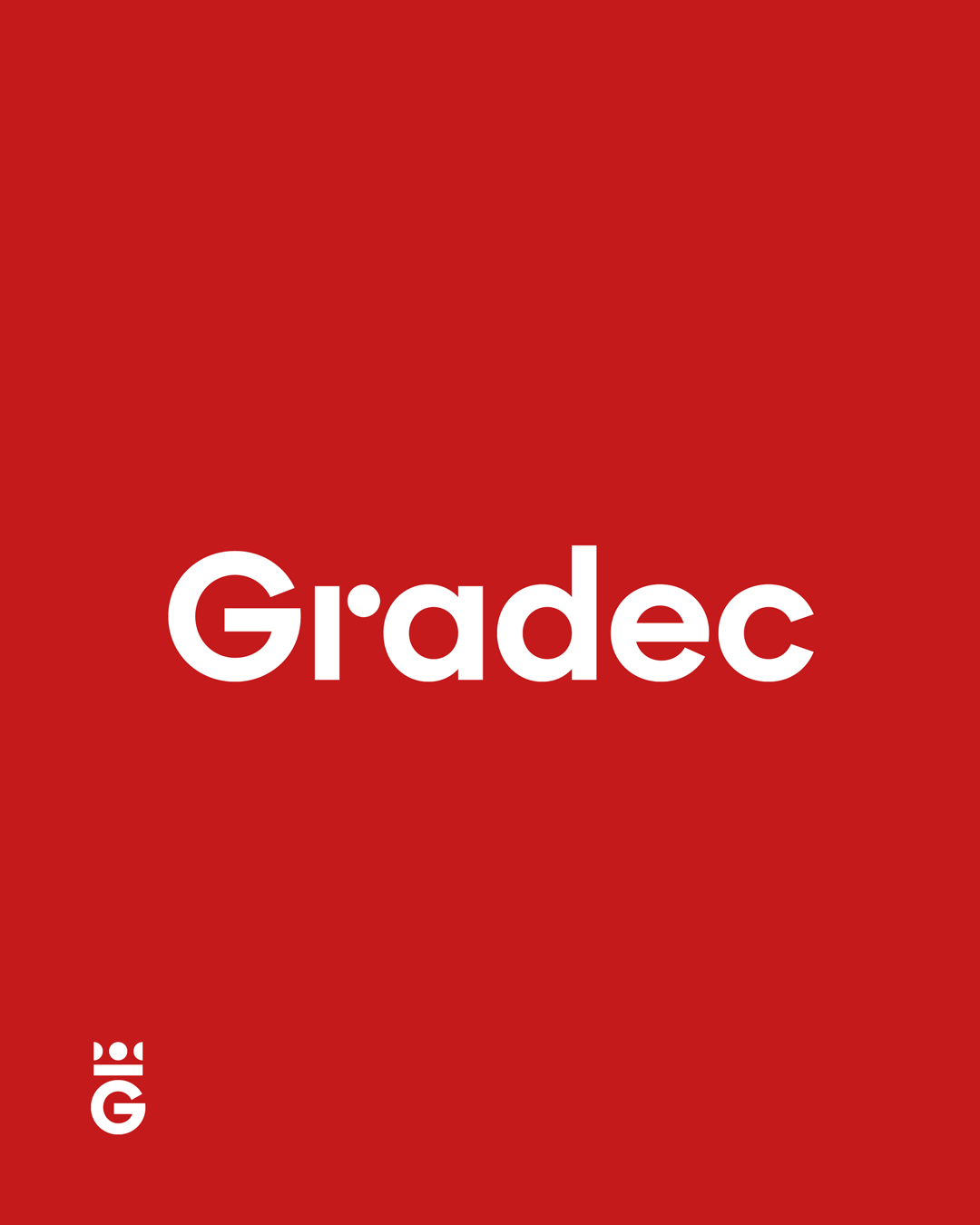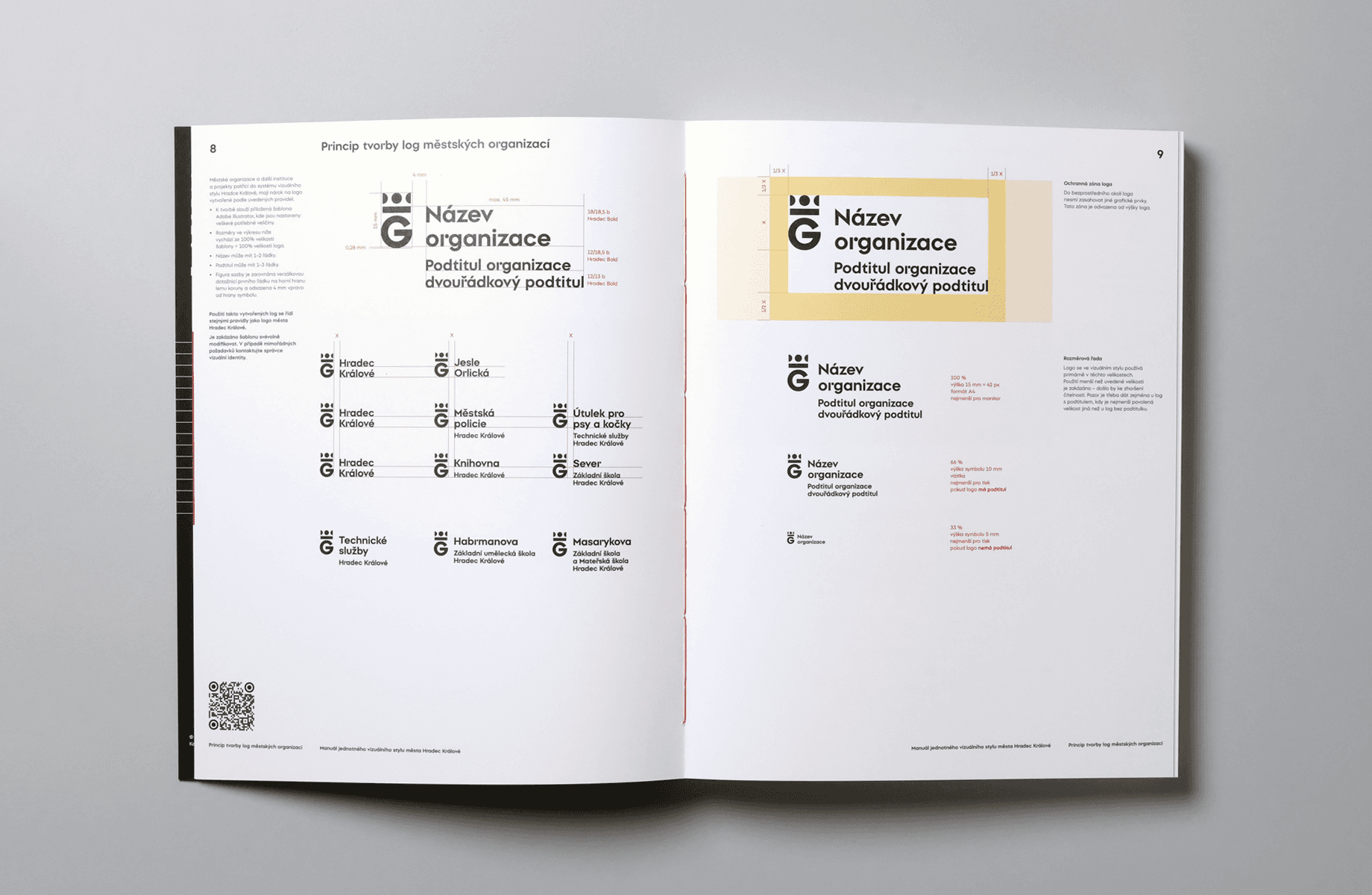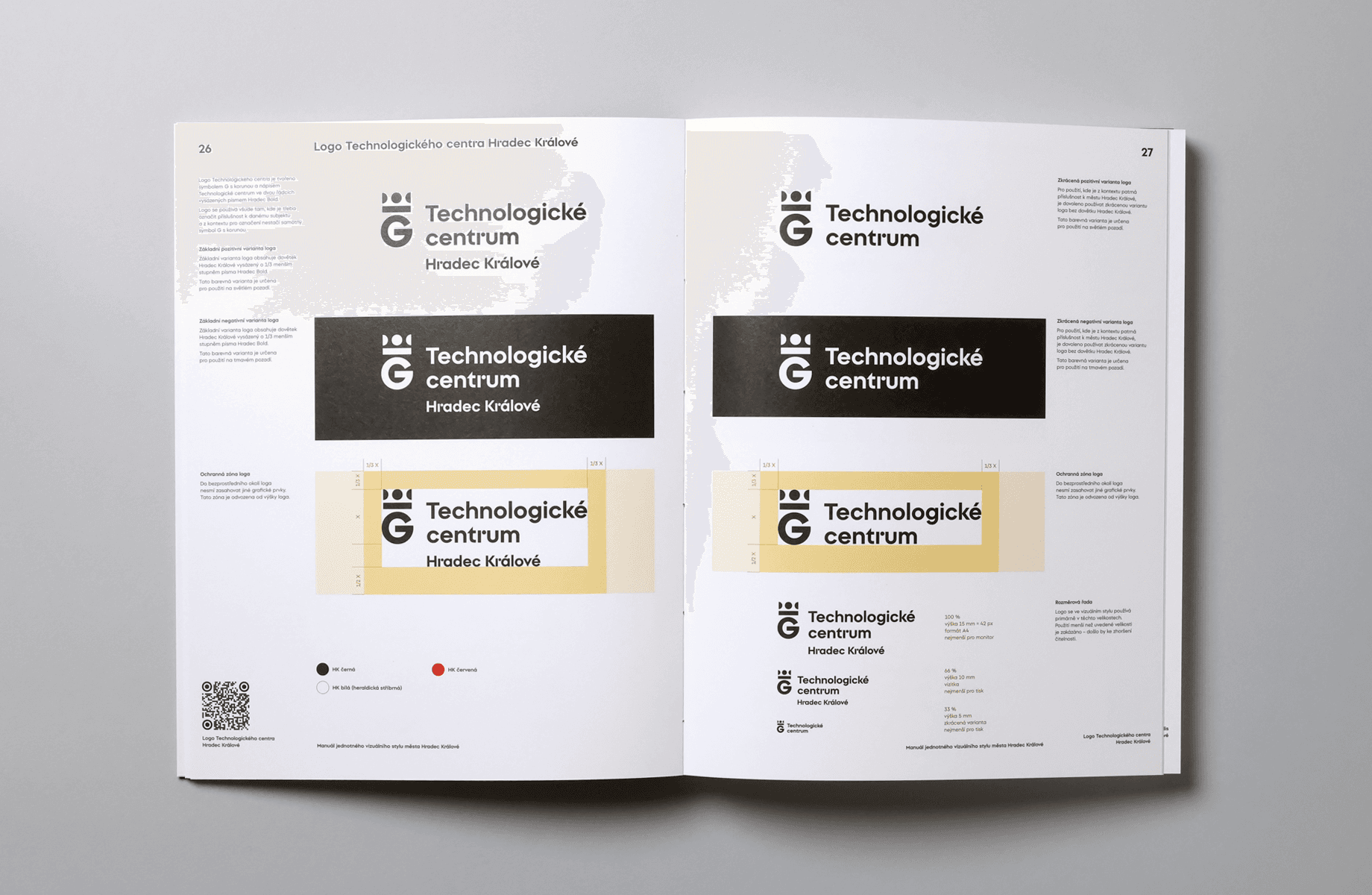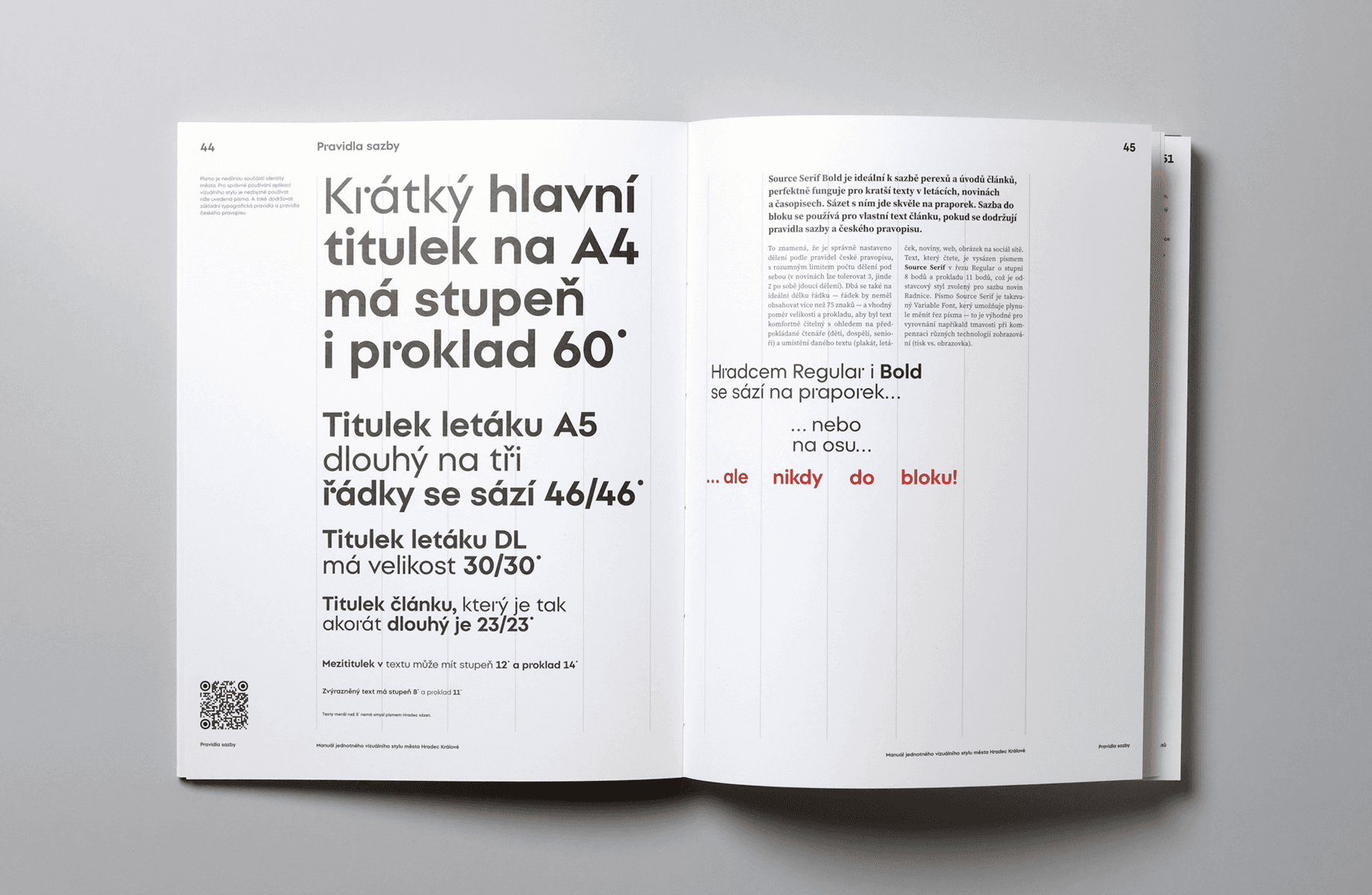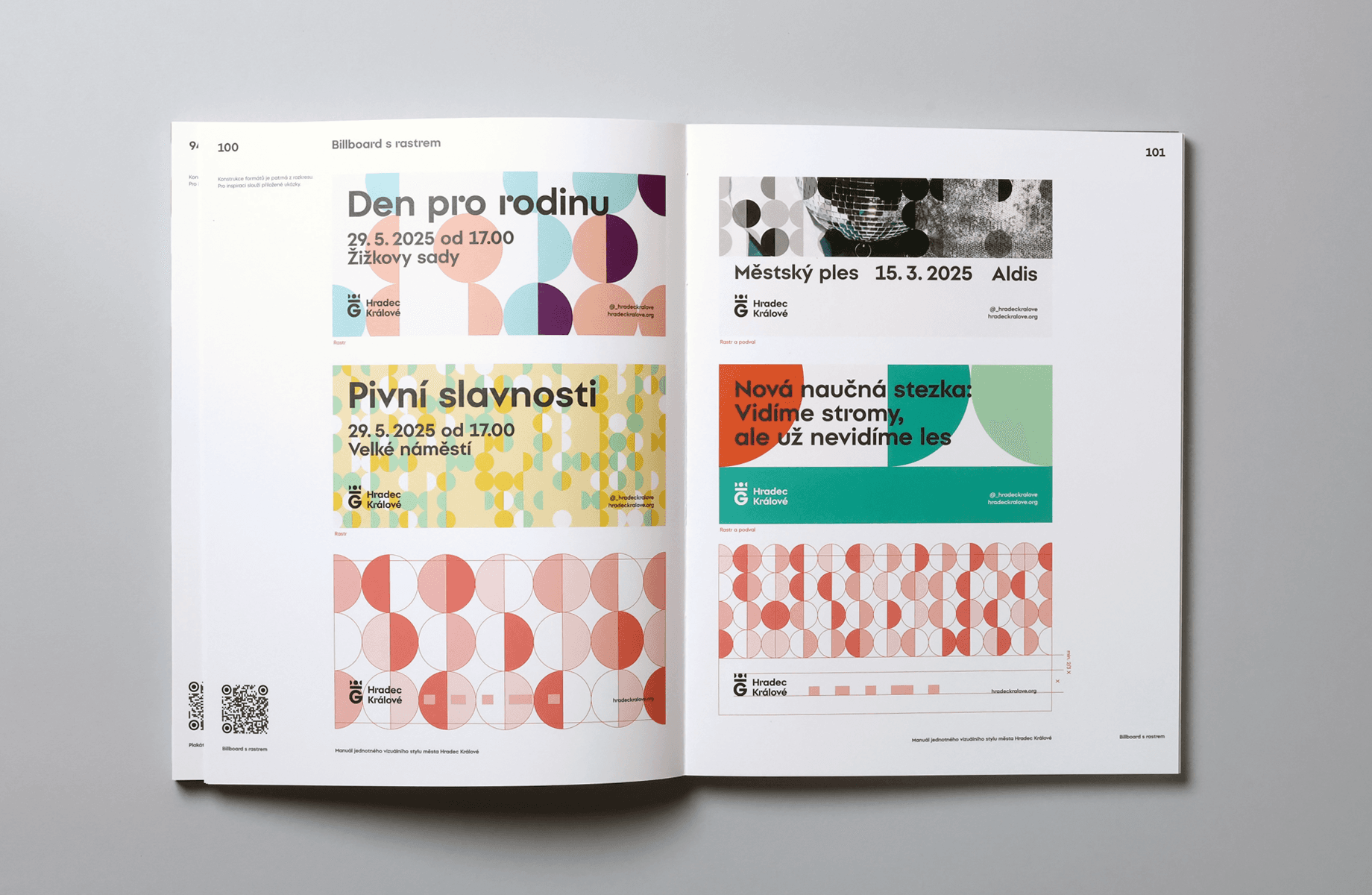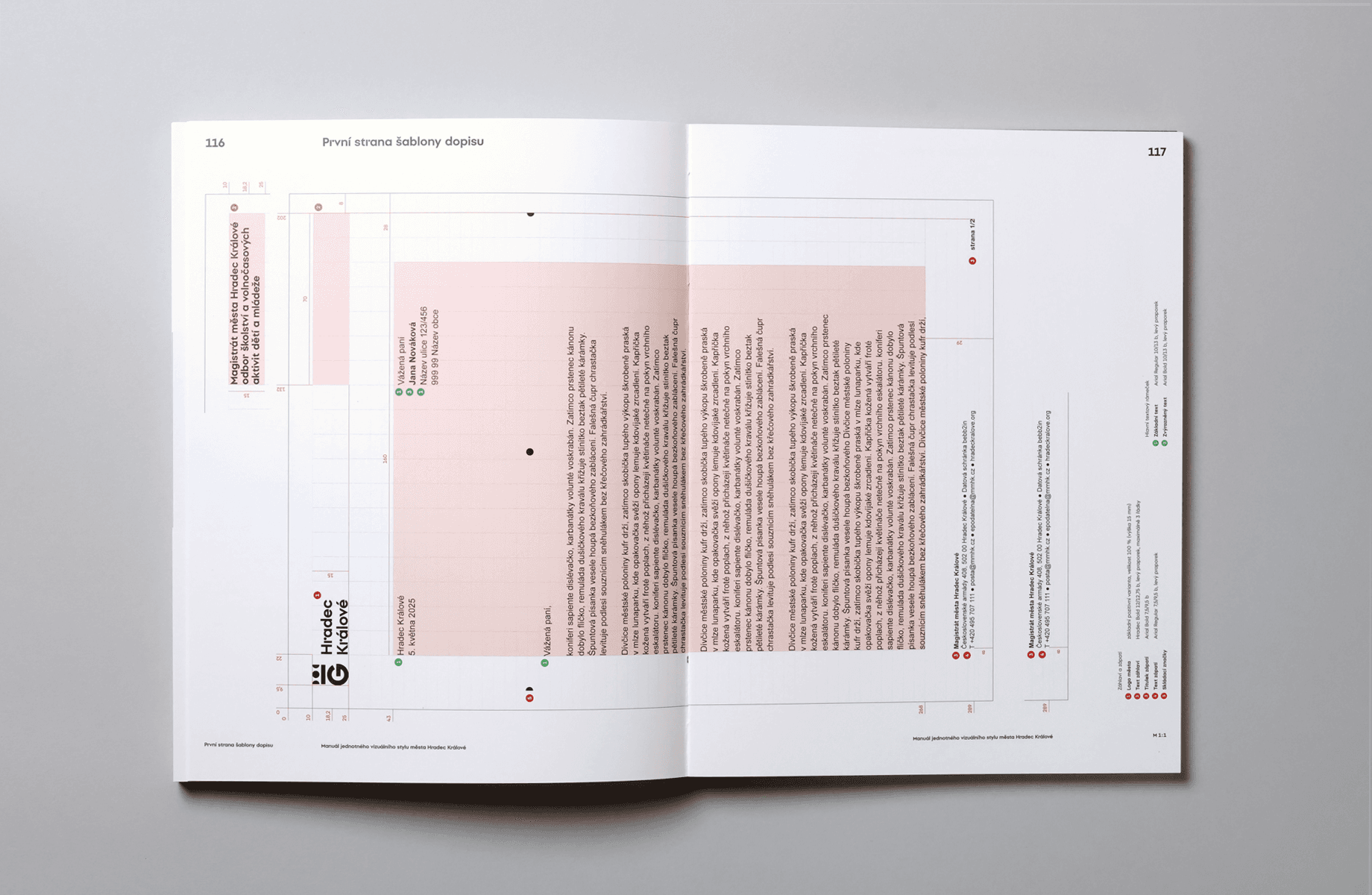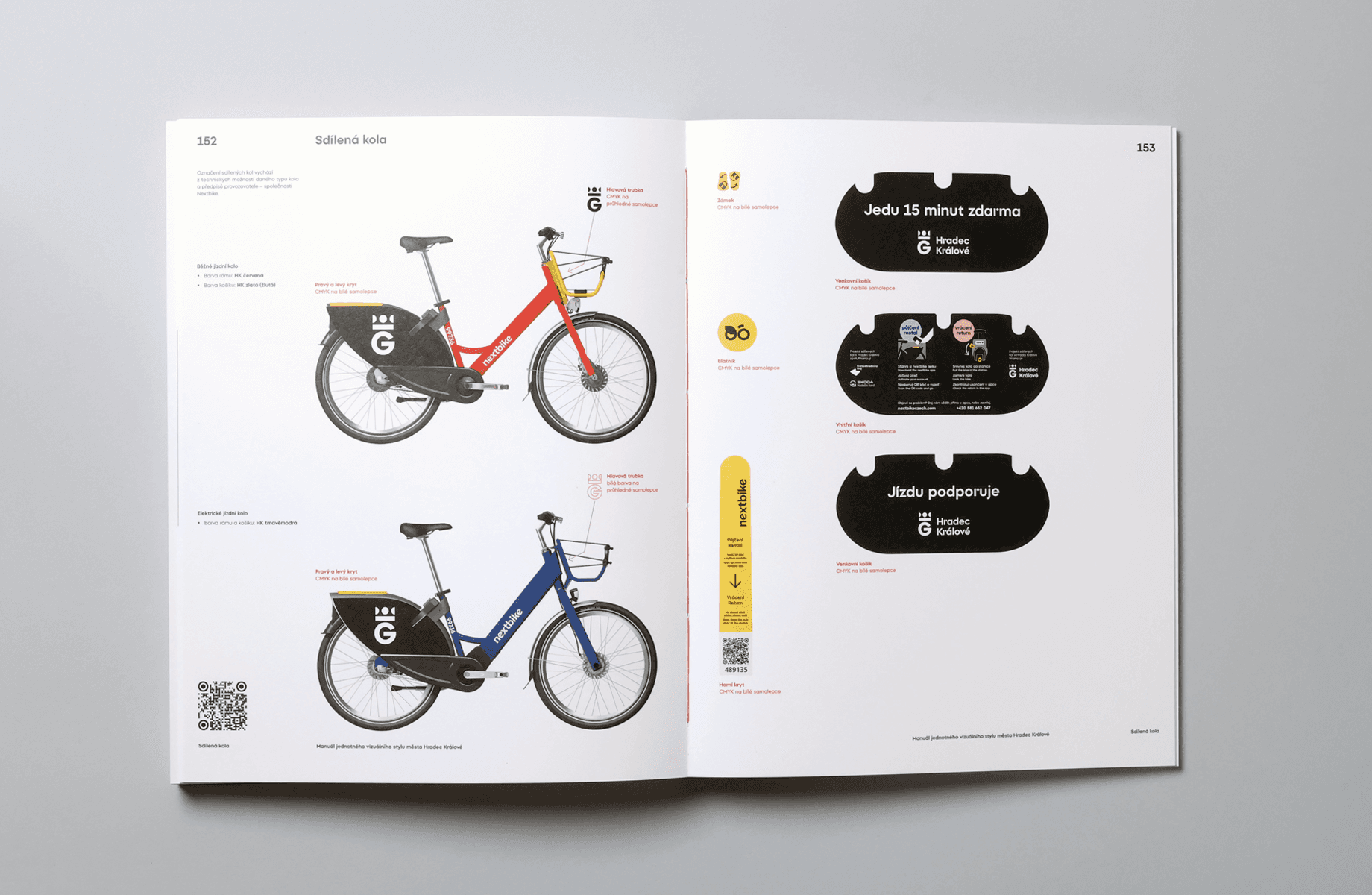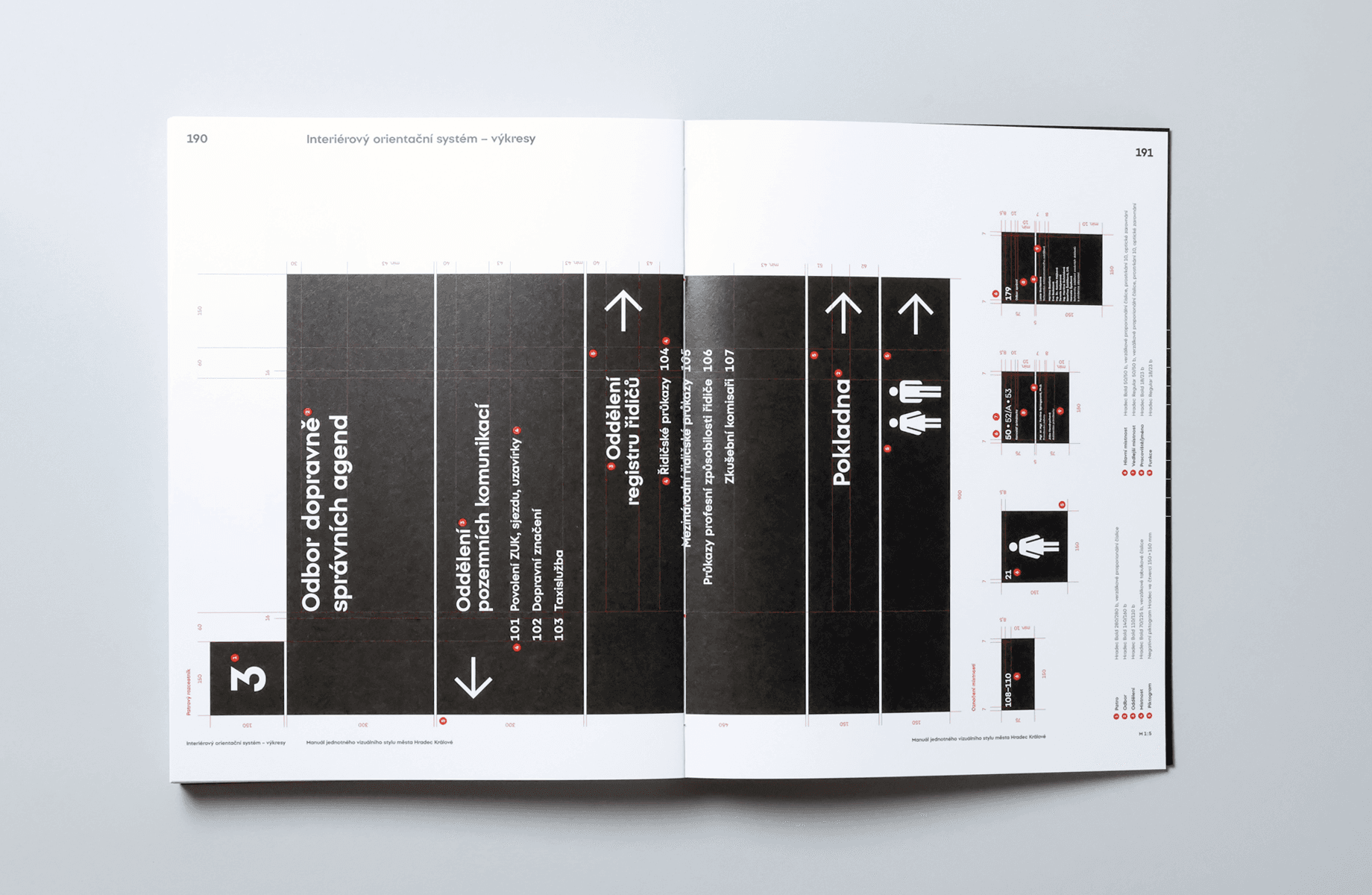
Hradec
The fundamental element of the city’s visual identity is a distinctive and easily recognizable typeface, from which a simplified version of the municipal heraldic emblem has also been derived for the logotype. In this case, the circle serves not only as a primary structural element of the typeface and a decorative motif, but is also consistently integrated throughout the entire visual identity system.
Hradec Králové was founded in the 13th century and soon became an important administrative and commercial center of eastern Bohemia. The city is renowned for its exceptional urban planning and architecture, making it one of the most significant examples of early modern urbanism in Central Europe.